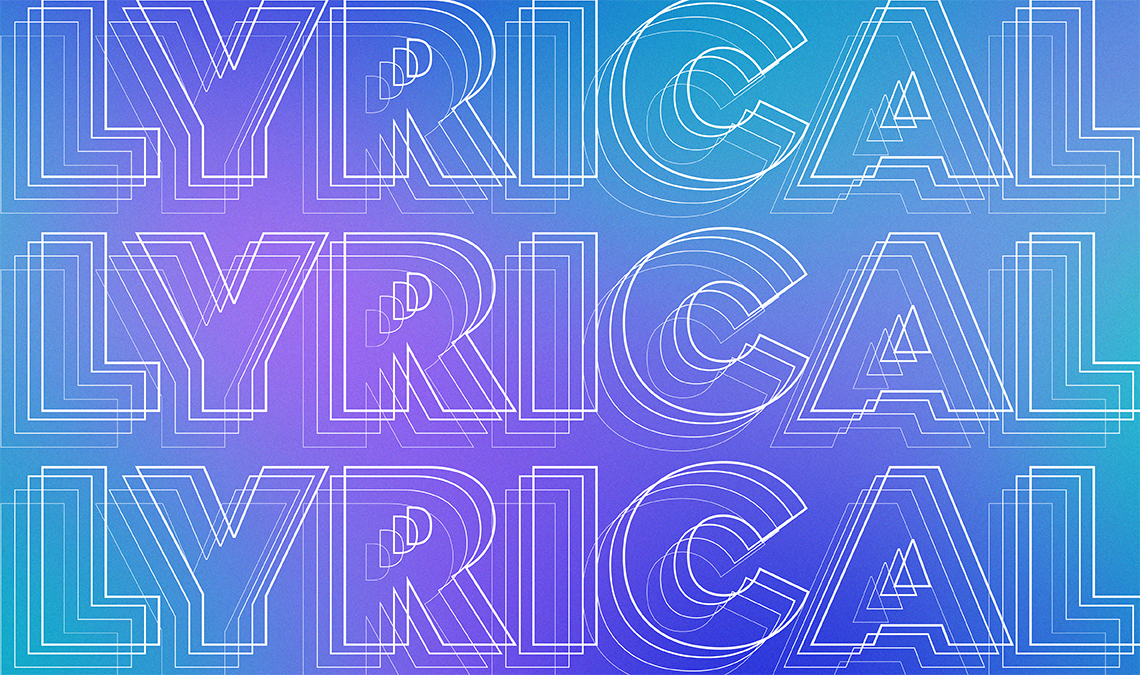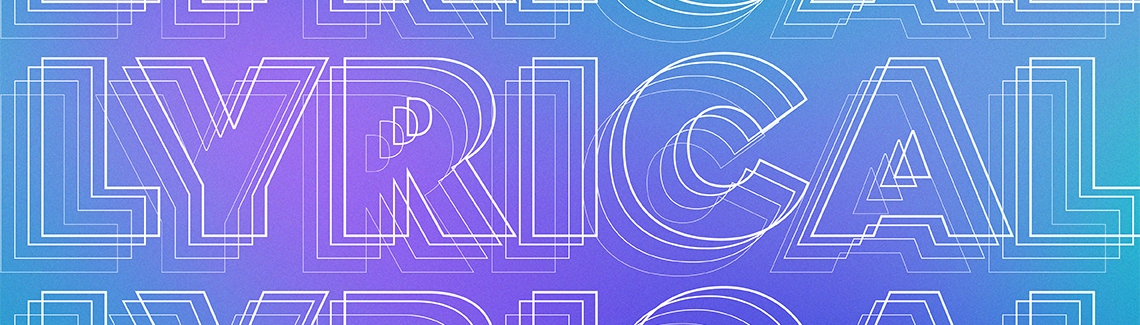
Postea in motion
Beginning with midcentury virtues, Postea is the rational response for pixel or paper text — a lyrical take on geometric sans serifs. Classic curves and purposeful details make it ideal for branding, signage, corporate typefaces, and magazines.
There’s something about geometric forms in typography that draw and inspire us. Users can see a brand and have an immediate impression about what it represents. Designers are looking for something able to represent more than the sum of its parts. So to reach both categories, we created Postea — a charismatic sans serif that taps into geometric forms. Read the full article about Postea’s inception here.